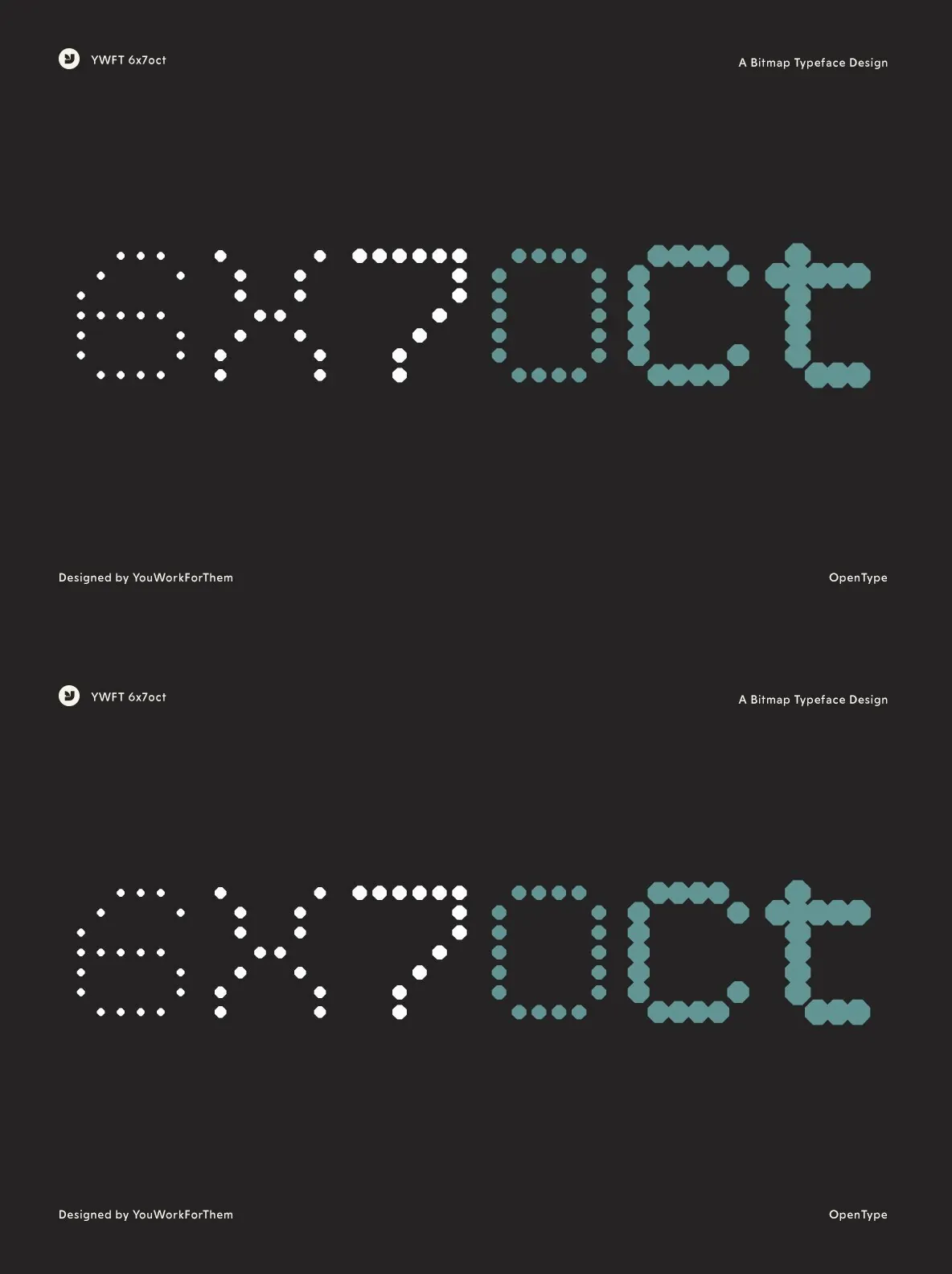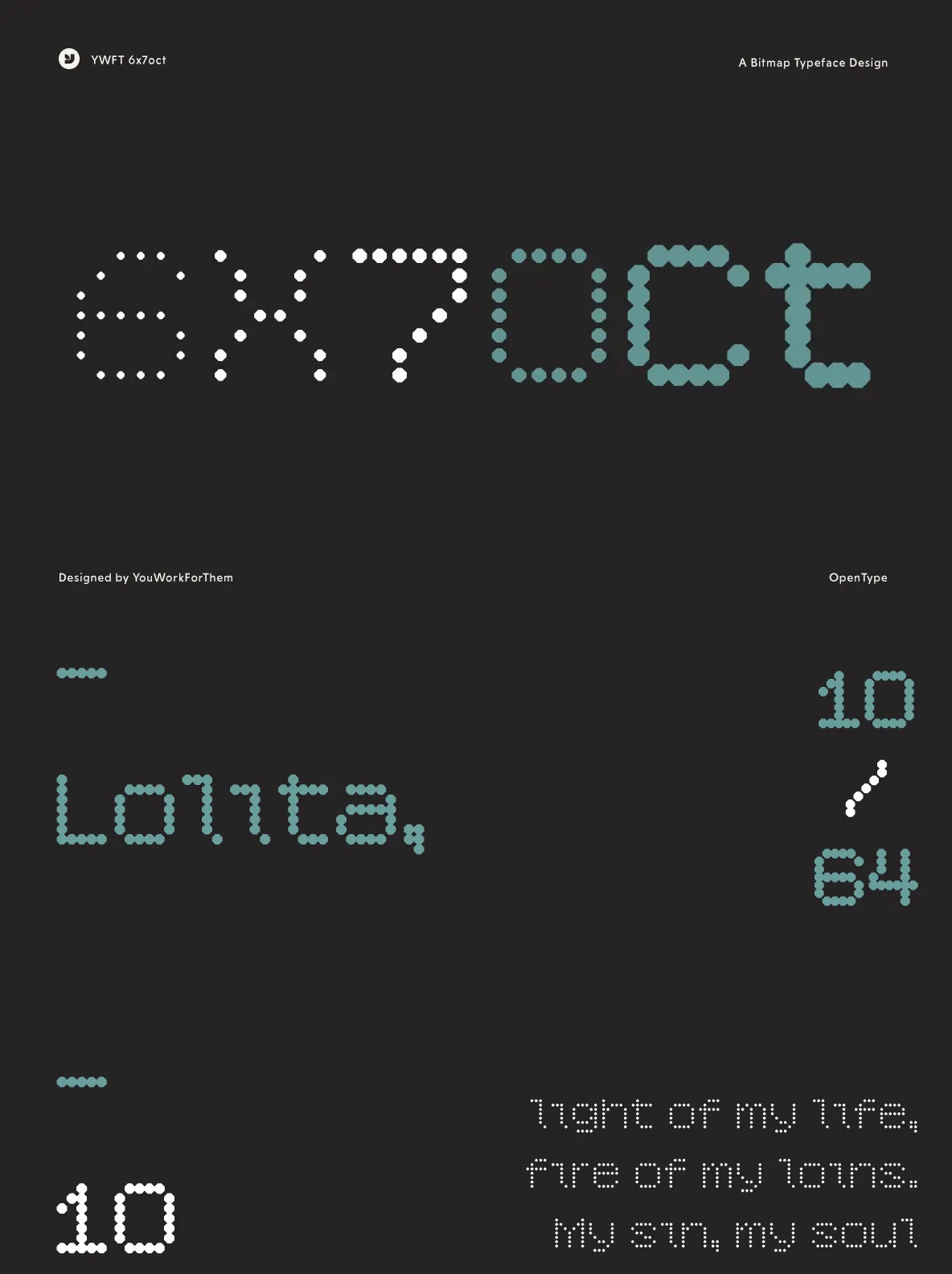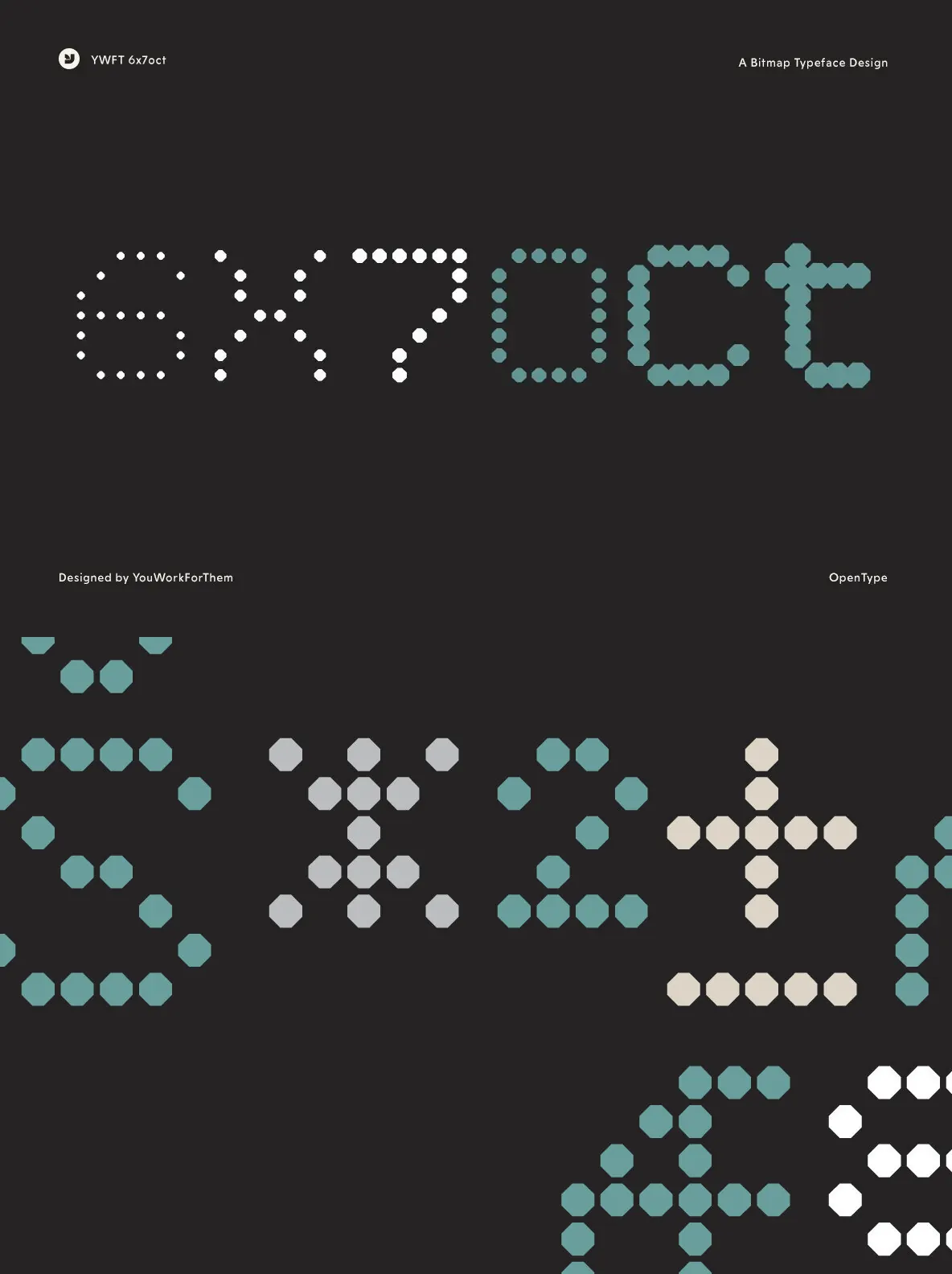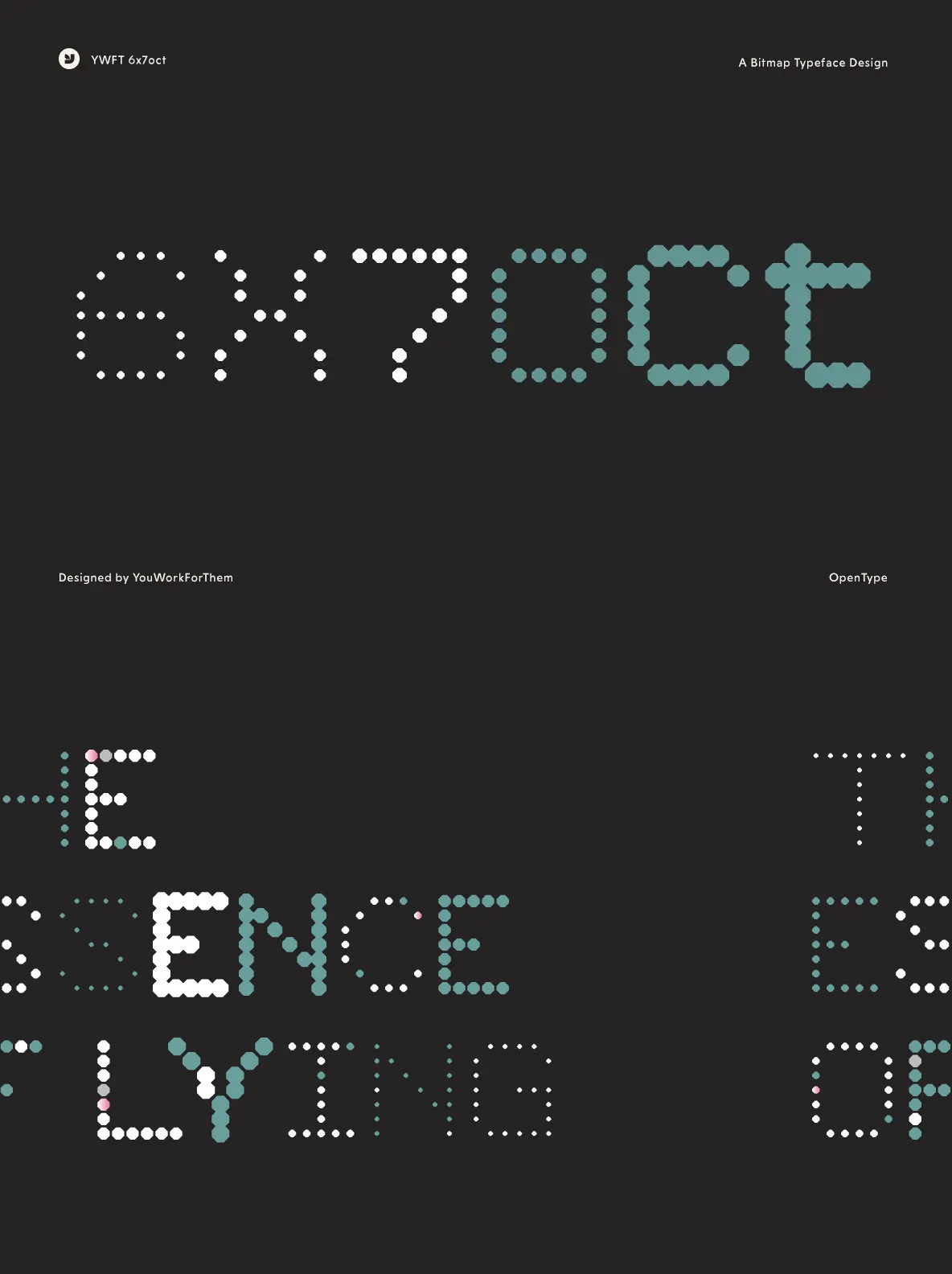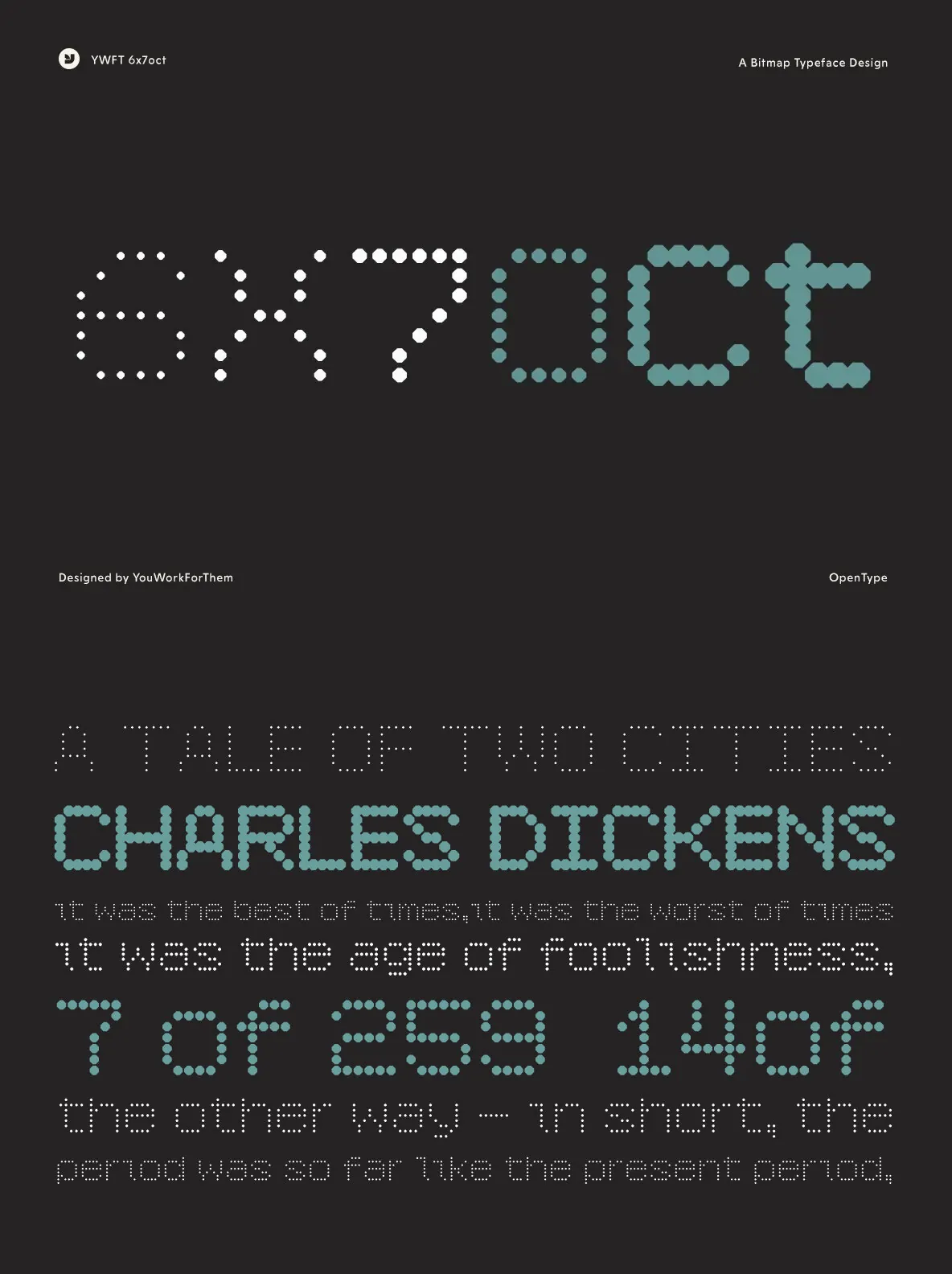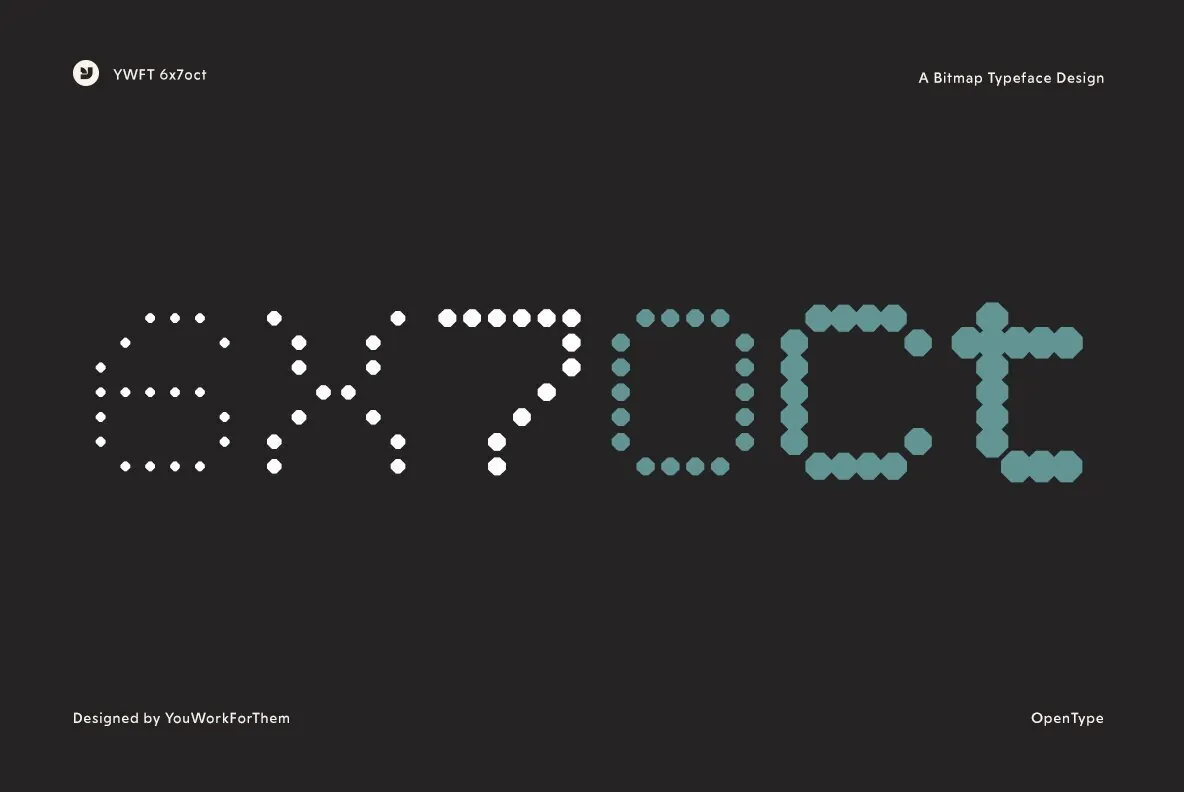
YWFT 6x7oct Font
YWFT 6x7oct — Octagonal Type in Motion
YWFT 6x7oct is drawn solely from octagonal shapes, giving the typeface a strict geometric logic and a distinctly engineered presence. Its forms blend influences from punch cards and electronic devices, resulting in letterforms that feel closely tied to industrial design, early data systems, and machine-made visual language.
The design carries a machine-like symmetry that marries beauty with functionality. This distinctive octagonal typography has attracted attention from major brands, with appearances in advertisements for Lidz and in VH1 brand spots. For design work that calls for structure, rhythm, and a technological edge, YWFT 6x7oct offers a clear and memorable typographic voice.
Notable Features
Geometric Design
– Built exclusively on octagonal shapes.
Influential Aesthetic
– Inspired by industrial designs and technology.
Diverse Applications
– Used by renowned brands like Lids and VH1.